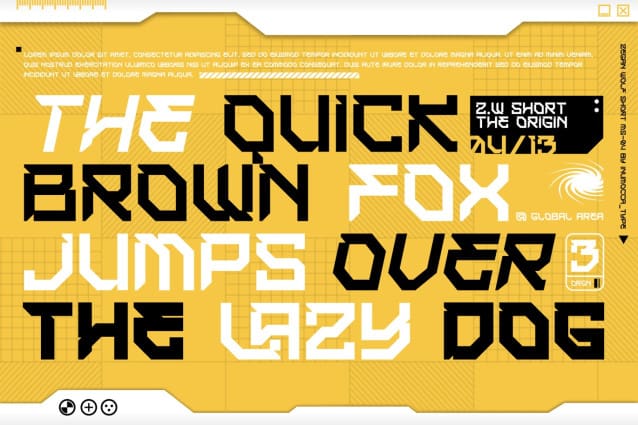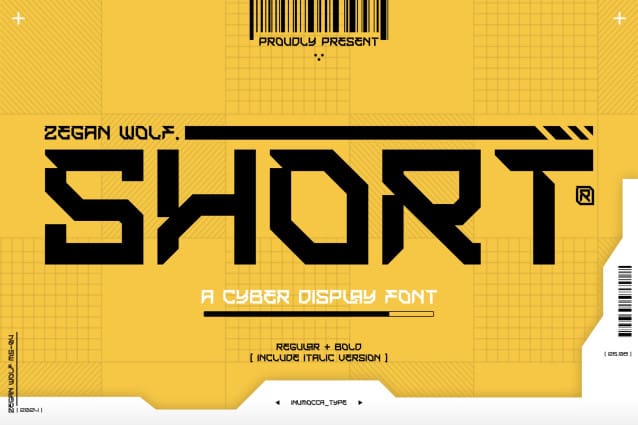
ZW Short Font
ZW Short Font a Cyber ​​Display Inspired by Game Poster, Futuristic Design, Modern Technology, Synthwave, Sci-Fi Movie Poster, Science and Space Theme. Very good font to cover your project, like game poster, mecha poster, logotype, website interface, magazine, branding, logos and more, your project design